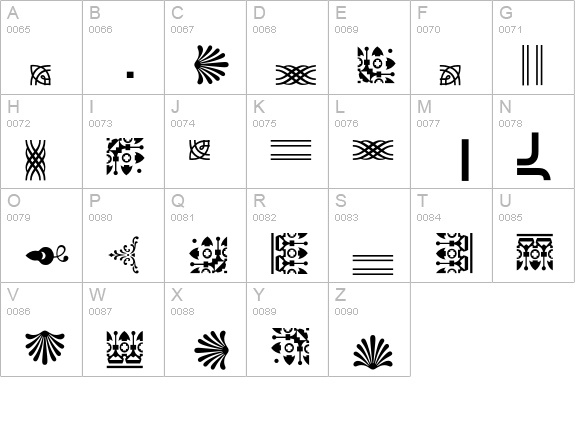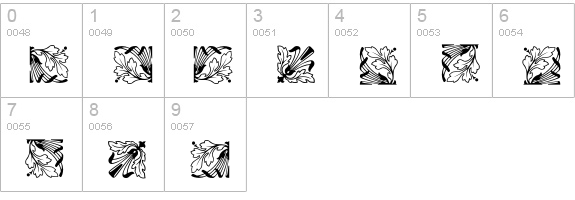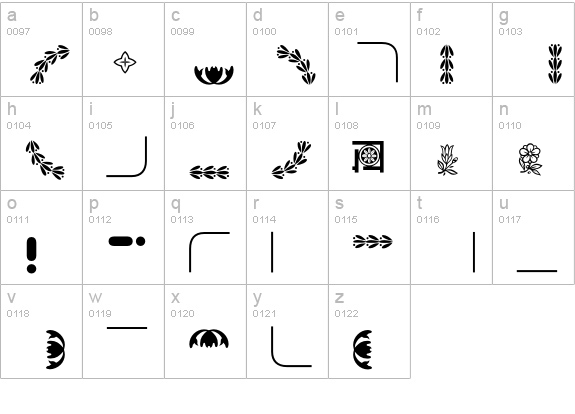
BordersOrnamentsP04 Font Details
BordersOrnamentsP04 font is a stunning collection of ornate and intricate borders that will add a touch of elegance to any design project. This font features a wide variety of decorative elements, from delicate swirls and floral motifs to bold geometric patterns. Whether you are working on invitations, posters, or other creative projects, BordersOrnamentsP04 font is sure to elevate your designs to the next level. The best part? This beautiful font is completely free to download at FontsMarket.com. With just a few clicks, you can add this versatile and eye-catching font to your font library and start using it in your projects right away. Don't miss out on this amazing opportunity to enhance your designs with the exquisite BordersOrnamentsP04 font - download it today for free!